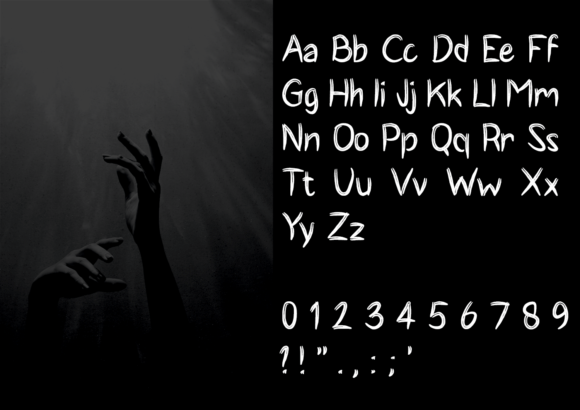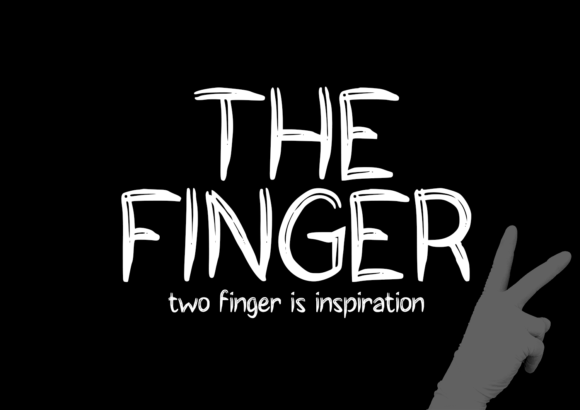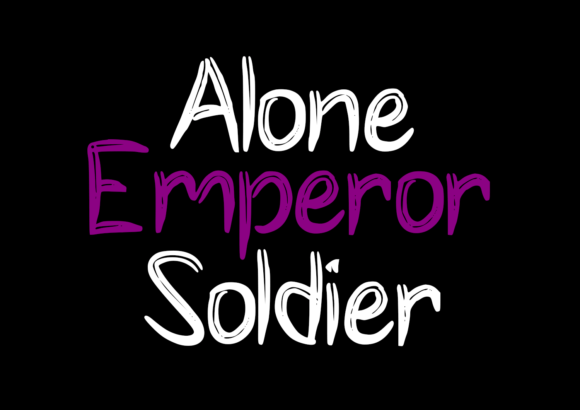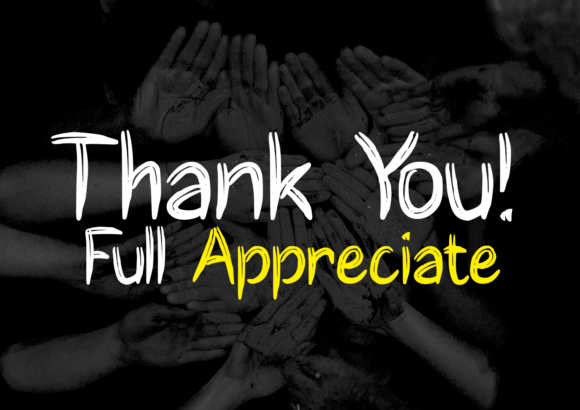
Introduction to Nosy Finger Font
Do you remember that moment when you’re working on a creative project and you stumble upon the perfect font? The one that makes your design pop, and you can’t imagine using anything else? That’s exactly what happened to me when I discovered the Nosy Finger Font.
This unique display font is inspired by the imperfections of nail scratches, giving it a dramatic and spooky look that’s perfect for branding, posters, apparel, merchandise, stickers, or any other design that needs a bold statement. With its high-quality design, it’s a valuable resource for designers looking to add a touch of edginess to their projects.
Key Features of Nosy Finger Font
- Features a unique and playful character set, perfect for adding a touch of whimsy to your design.
- Includes a transparent background, allowing for seamless integration with any design element.
- Unique characteristics include a bold and expressive style, making it perfect for titles, headings, and other attention-grabbing elements.
- Can be used in a variety of creative projects, including illustrations, graphics, and typography-based designs.
Honest Review: Nosy Finger Font
I recently stumbled upon the Nosy Finger Font while searching for a free design resource for a creative project. I must say, I was pleasantly surprised by the high quality of this font. It’s perfect for designers who want to add a unique touch to their work.
Here are some of the features that I love about the Nosy Finger Font:
- ✨ Unique and playful design that adds a personal touch to any project.
- ✨ Transparent background, making it easy to overlay on any image or design element.
- ⚠️ Limited character set, which may not be suitable for longer texts or formal projects.
- ⚠️ Not suitable for professional or high-end designs where a more sophisticated font is required.
Overall, I would highly recommend the Nosy Finger Font for creative projects where a playful and unique design is needed. It’s a great addition to any design resource library and can add a lot of personality to your work.
Nosy Finger Font
The Nosy Finger Font is a high-quality, free download design resource perfect for creative projects. This versatile font features a transparent background, making it easy to customize and integrate into your designs.
Tips for Getting the Most Out of Nosy Finger Font
To get the most out of the Nosy Finger Font, experiment with different font sizes, colors, and combinations to create unique and visually appealing designs.
The Nosy Finger Font is perfect for:
- Print and digital marketing materials